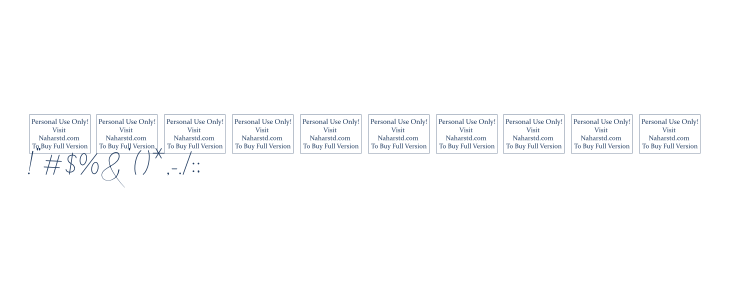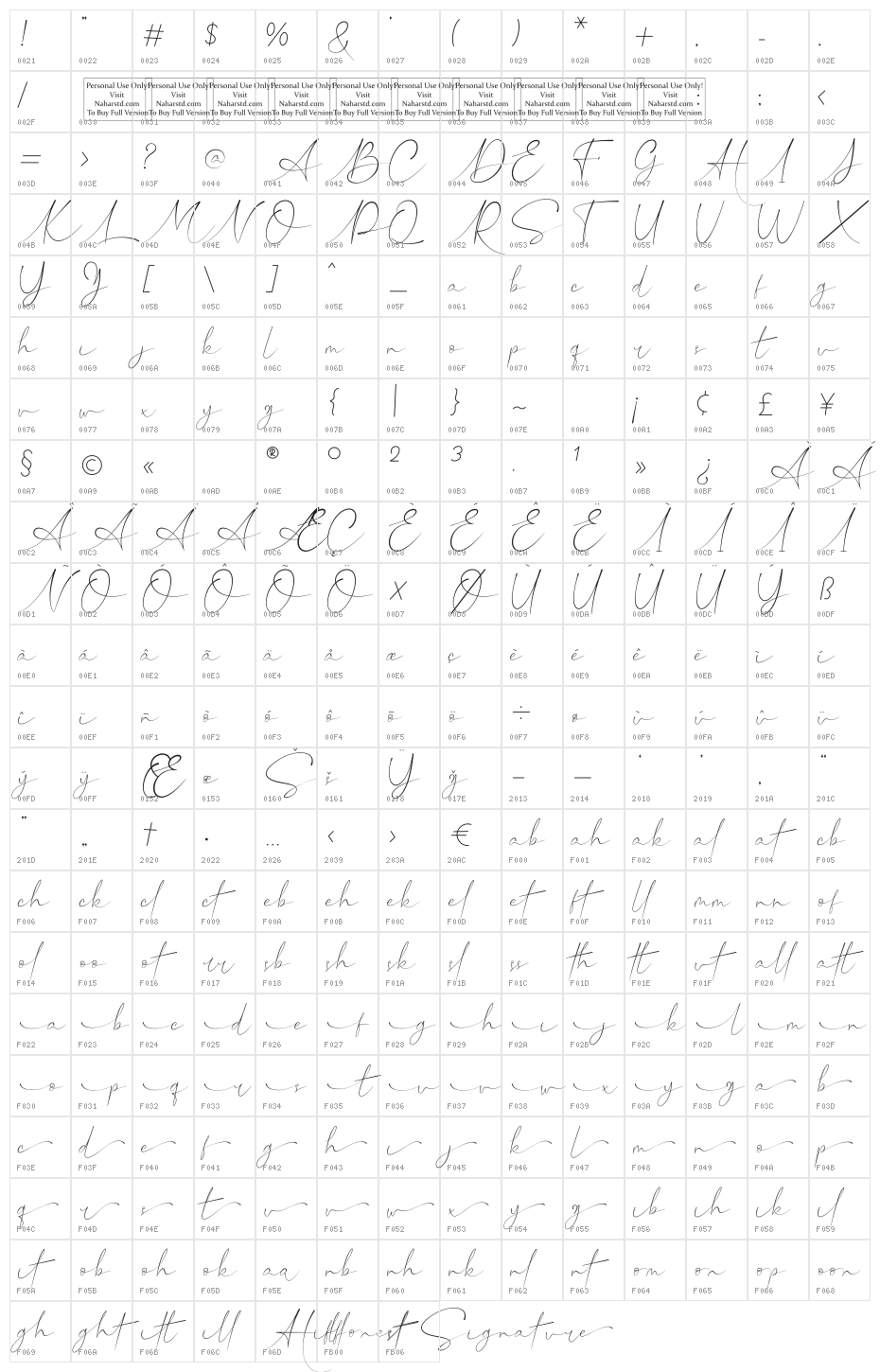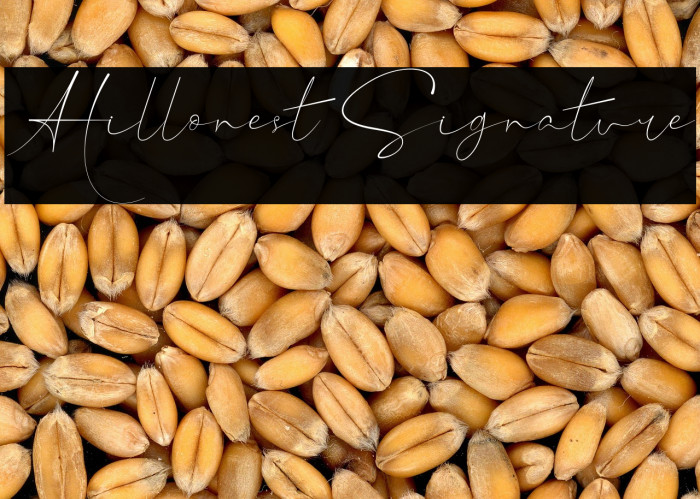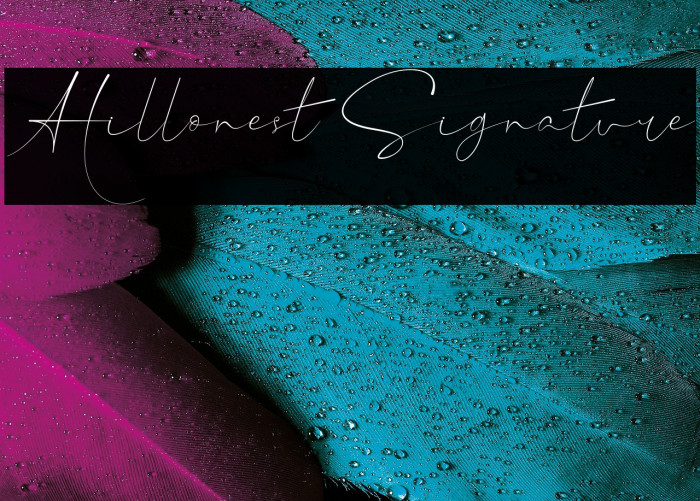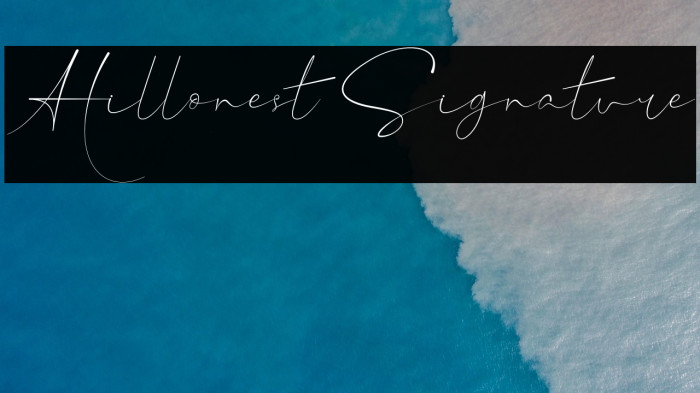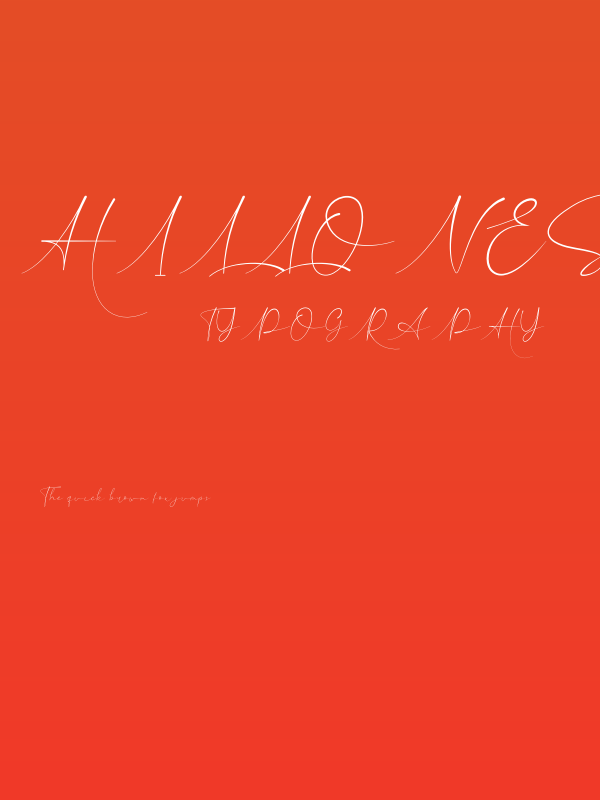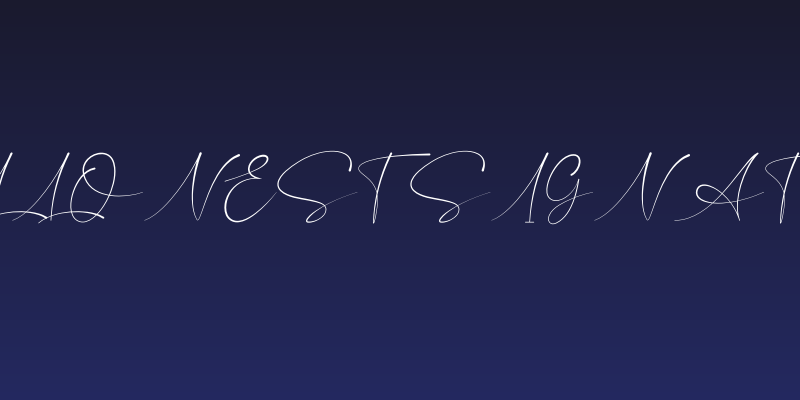
Hillonest Signature Font
Hillonest Signature Description
This font features a delicate and flowing script style, characterized by its elegant, cursive letterforms. The uppercase letters are tall and slender, with graceful loops and swashes that convey a sense of sophistication and fluidity. The lowercase letters maintain a consistent flow, with smooth connections between each character, enhancing the handwritten appearance. The numerals and special characters complement the overall aesthetic with their refined curves and balanced proportions. This font exudes a personal and artistic touch, making it ideal for projects that require a signature-like quality.
| Use Case | Logos, Signatures, Invitations |
| Proposed Projects | Ideal for wedding invitations, personal branding, greeting cards, and elegant stationery. |